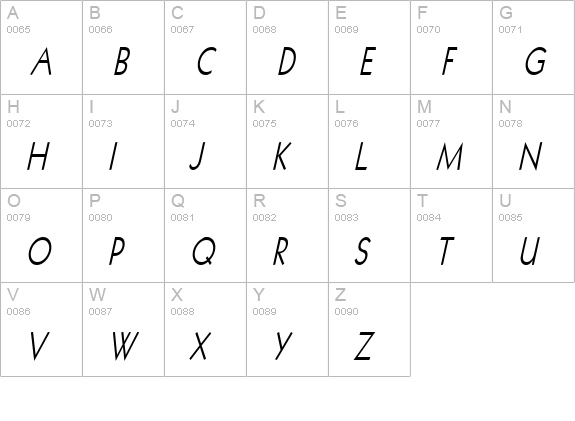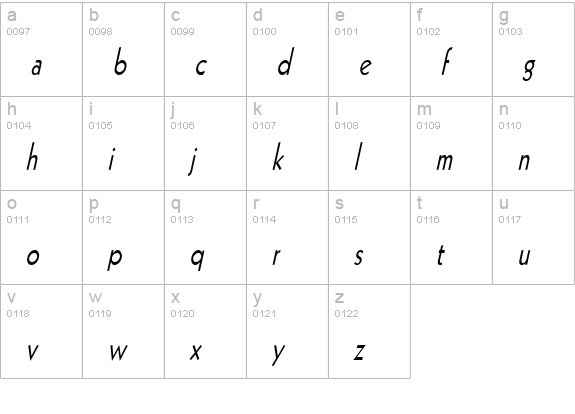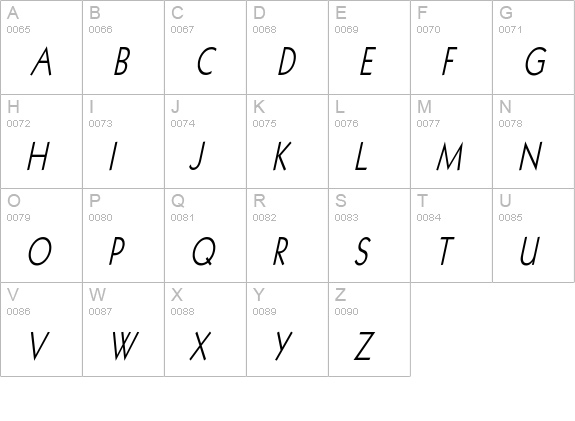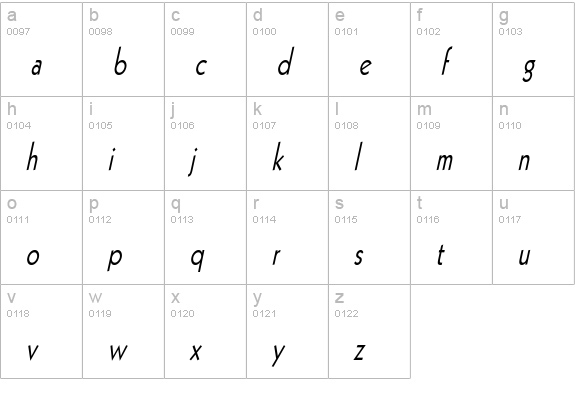
Geo 112 Thin Italic is a delicate, low-contrast, italic variant in the Geo typeface family \xE2\x80\x94 well suited to fashion editorial, minimal branding, and high-contrast display.
The Geo 112 Thin Italic font is a sleek and modern typeface that exudes elegance and sophistication. Its thin and italic design adds a touch of style to any project, making it perfect for use in logos, branding, headlines, and more. The clean lines and subtle curves of this font make it versatile and easy to read, while still maintaining a sense of uniqueness. Best of all, the Geo 112 Thin Italic font is completely free to download at FontsMarket.com! Whether you're a designer looking to add a new font to your collection or just someone in need of a fresh look for your next project, this font is the perfect choice. Don't miss out on the opportunity to enhance your work with this beautiful and free typeface. Download the Geo 112 Thin Italic font today and elevate your designs to the next level.